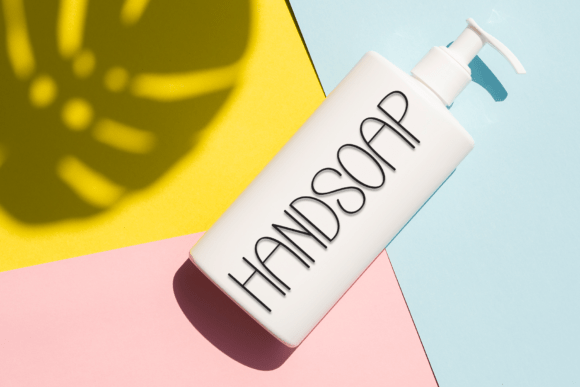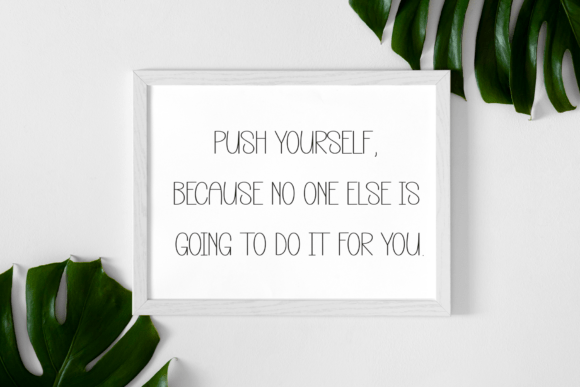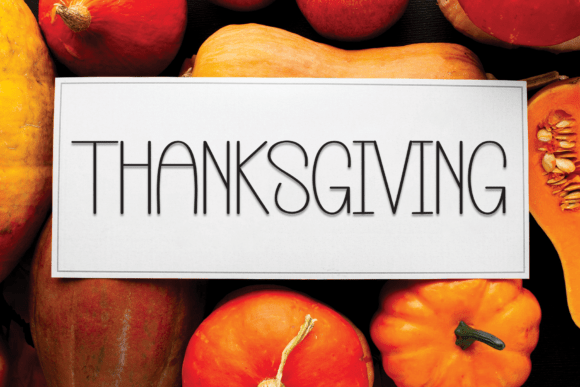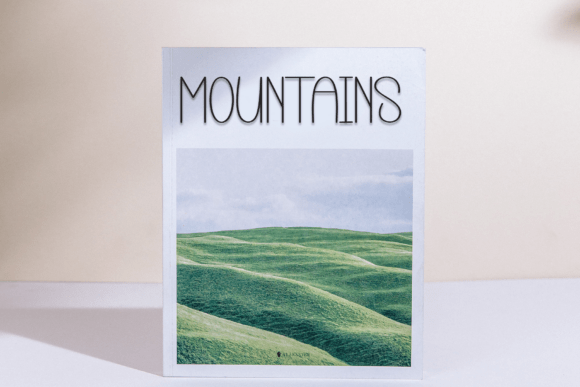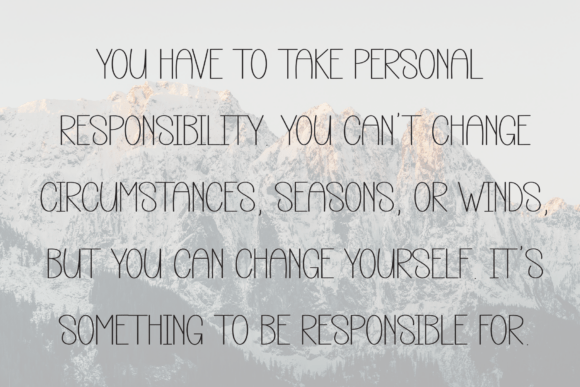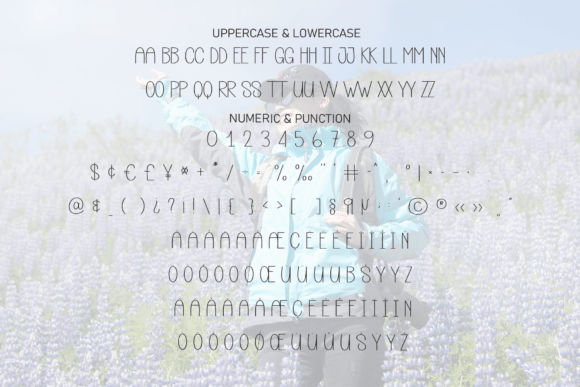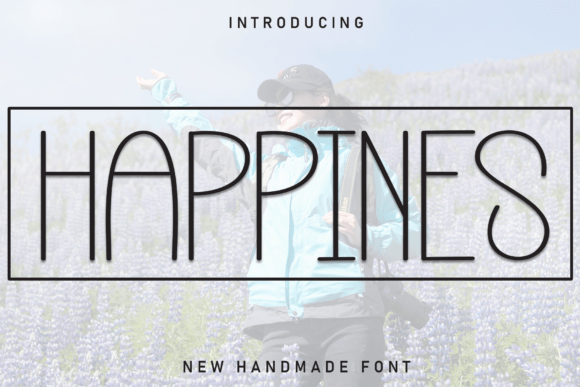
Introducing Happiness Font: The Ultimate Handwritten Display Font for Your Creative Projects
Are you tired of using the same old fonts for your design projects? Do you want to add a touch of whimsy and fun to your artwork? Look no further than Happiness Font, an irresistibly charming handwritten display font that’s perfect for crafters, designers, and anyone looking to add a dash of excitement to their creative endeavors.
A Perfect Blend of Sweet and Friendly Delight
Happiness Font is a unique and lovably versatile typeface that’s designed to bring a smile to your face. Its playful mood and original character make it the perfect choice for a wide range of design projects, from exquisite wedding invitations to heartfelt cards, and even social media graphics. With Happiness Font, you can add a touch of personality to your artwork and make it stand out from the crowd.
What Makes Happiness Font So Special?
So, what sets Happiness Font apart from other fonts out there? Here are just a few reasons why this font is a must-have for designers and crafters:
- Handwritten charm: Happiness Font is a handwritten display font that’s full of character and personality. Its imperfect lines and curves give it a warm and inviting feel that’s perfect for creating unique and eye-catching designs.
- Sweet and friendly: This font is designed to be sweet and friendly, making it perfect for projects that require a touch of whimsy and fun. Whether you’re creating wedding invitations or social media graphics, Happiness Font is sure to bring a smile to your audience’s face.
- Versatile: Happiness Font is a versatile typeface that can be used for a wide range of design projects. Its playful mood and original character make it perfect for everything from formal events to casual social media posts.
Ideas for Using Happiness Font
Now that you know a little bit more about Happiness Font, here are some ideas for using it in your design projects:
- Wedding invitations: Happiness Font is perfect for creating beautiful and unique wedding invitations. Its sweet and friendly charm makes it ideal for formal and informal wedding announcements.
- Social media graphics: Add a touch of whimsy to your social media graphics with Happiness Font. Its playful mood and original character make it perfect for creating eye-catching Facebook and Instagram posts.
- Cards and stationery: Happiness Font is a great choice for creating handmade cards and stationery. Its handwritten charm and sweet personality make it perfect for sending heartfelt messages to friends and loved ones.
- Branding and packaging: If you’re looking for a font that’s a little bit different, Happiness Font is a great choice for branding and packaging. Its unique character and playful mood make it perfect for creating eye-catching logos and labels.
In conclusion, Happiness Font is a unique and lovably versatile handwritten display font that’s perfect for designers, crafters, and anyone looking to add a touch of whimsy to their creative projects. Its sweet and friendly charm, playful mood, and original character make it a must-have for a wide range of design projects, from wedding invitations to social media graphics. So why wait? Download Happiness Font today and start adding a dash of fun to your artwork!